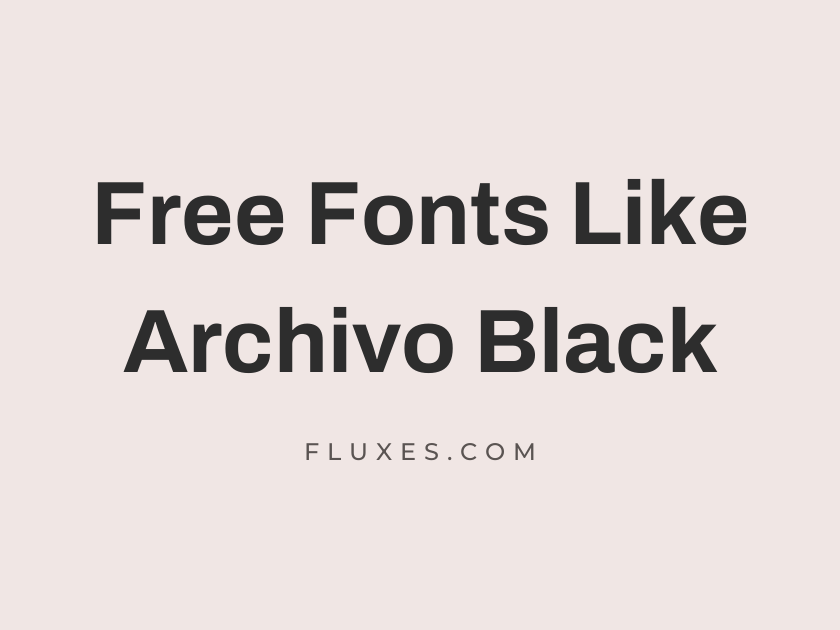
14 Best Free Fonts Similar to Archivo Black
Archivo Black earned its place in nearly every designer’s toolkit because it does one thing extremely well: it shouts. That dense, no-nonsense grotesque weight has become a default choice for hero headlines, poster type, and punchy branding where a message needs to land in under a second. If you are hunting for free fonts that carry the same authority, whether as a genuine swap or as a companion voice to pair against it, Google Fonts has a deep bench of grotesque and display faces built for exactly this kind of heavy lifting.
Bold headlines that stop the scroll instantly
Before reaching for alternatives, it is worth remembering that Archivo Black is actually the heaviest cut of a much larger family. The full Archivo superfamily includes text weights, italics, and expanded widths, so you can build an entire hierarchy, from body copy to blaring headline, without ever leaving one coherent type system.
Anton is the font people reach for when Archivo Black still feels too polite. It is narrower, denser, and unapologetically loud, making it a favorite for sports graphics, protest posters, and anything that needs to read at billboard scale from across a room.
Confident branding starts with strong type
Chivo’s black weight is probably the closest match on this list in both proportion and attitude, sharing that same squared-off, high-impact grotesque energy. It differs enough in its terminals and spacing that it reads as its own personality rather than a copy, which makes it a smart pick when you want the same weight class without looking derivative.
Big Shoulders
Chicago-built type for tough headlines
Big Shoulders
Named after Chicago’s industrial skyline, Big Shoulders brings a slightly condensed, architectural feel to heavy display type. It comes in an unusually wide range of widths and weights, so designers who like the density of Archivo Black but need a narrower footprint for tight layouts have plenty of room to experiment.
Modern grotesque energy for bold statements
Barlow’s black cut softens the edges just enough to feel friendlier than Archivo Black while keeping the same grotesque backbone. It was originally drawn with California’s state signage in mind, so it carries a clean, civic clarity that works equally well in apps, dashboards, and headline type.
Tall, condensed type for strong impact
Oswald trades width for height, offering a tall, condensed alternative for situations where Archivo Black feels too wide for the space available. It has become a staple of blog headlines and editorial mastheads precisely because it stays legible and confident even when squeezed into narrow columns.
Friendly bold type with rounded corners
Rubik’s black weight keeps the chunky proportions but rounds the corners just slightly, giving it a warmer, more approachable tone. It suits brands that want to feel bold without tipping into aggression, and its extensive weight range makes it easy to build a full system around a single family.
Saira
Versatile bold type for digital interfaces
Saira
Saira is a workhorse. Its black weight has the same dense presence as Archivo Black, but the family also stretches into condensed and extra-condensed widths, so one typeface can cover everything from a splashy homepage headline to a tightly packed navigation label.
Classic American grotesque, bold and clear
Rooted in the shapes of Franklin Gothic, Libre Franklin’s heaviest weight has an old-school American newspaper gravitas that reads as slightly more traditional than Archivo Black. It pairs nicely with a serif body text if you want a headline that feels historically grounded rather than purely contemporary.
Encode Sans
Bold, wide letterforms for strong headlines
Encode Sans
Encode Sans in its black weight leans wider and more mechanical, almost like it was drawn for signage rather than screens. It can look slightly heavy-handed at small sizes, so save it for headlines, badges, and short bursts of display text rather than paragraphs.
Clean bold type built for the web
Work Sans was optimized for screen legibility from the outset, and its black weight retains that clarity even at fairly compact sizes. It is a dependable choice for product headlines and marketing sites that need boldness without sacrificing crispness on lower-resolution displays.
Geometric bold type with a modern edge
Space Grotesk never gets quite as heavy as Archivo Black, topping out at a confident bold rather than a true black weight, but its geometric proportions and slightly quirky details give it a distinct, contemporary voice. It suits tech and startup branding that wants boldness with a touch of character rather than pure brute force.
Highway-inspired type, bold and legible
Overpass borrows its DNA from U.S. highway signage, so its black weight has that same engineered, high-visibility clarity. It is a solid pick for anyone who liked the utilitarian honesty of Archivo Black but wants a font with a more overtly infrastructural, road-sign feel.
Test legibility at the smallest size you plan to use. Some of these black weights turn muddy below a certain point size, especially on lower-quality screens.
Archivo Black earned its popularity by being direct, sturdy, and endlessly useful, and the alternatives above each offer their own spin on that same bold confidence. Whether you need something narrower, friendlier, more geometric, or simply free to download and drop straight into a project, there is a grotesque here ready to carry the weight of a headline.